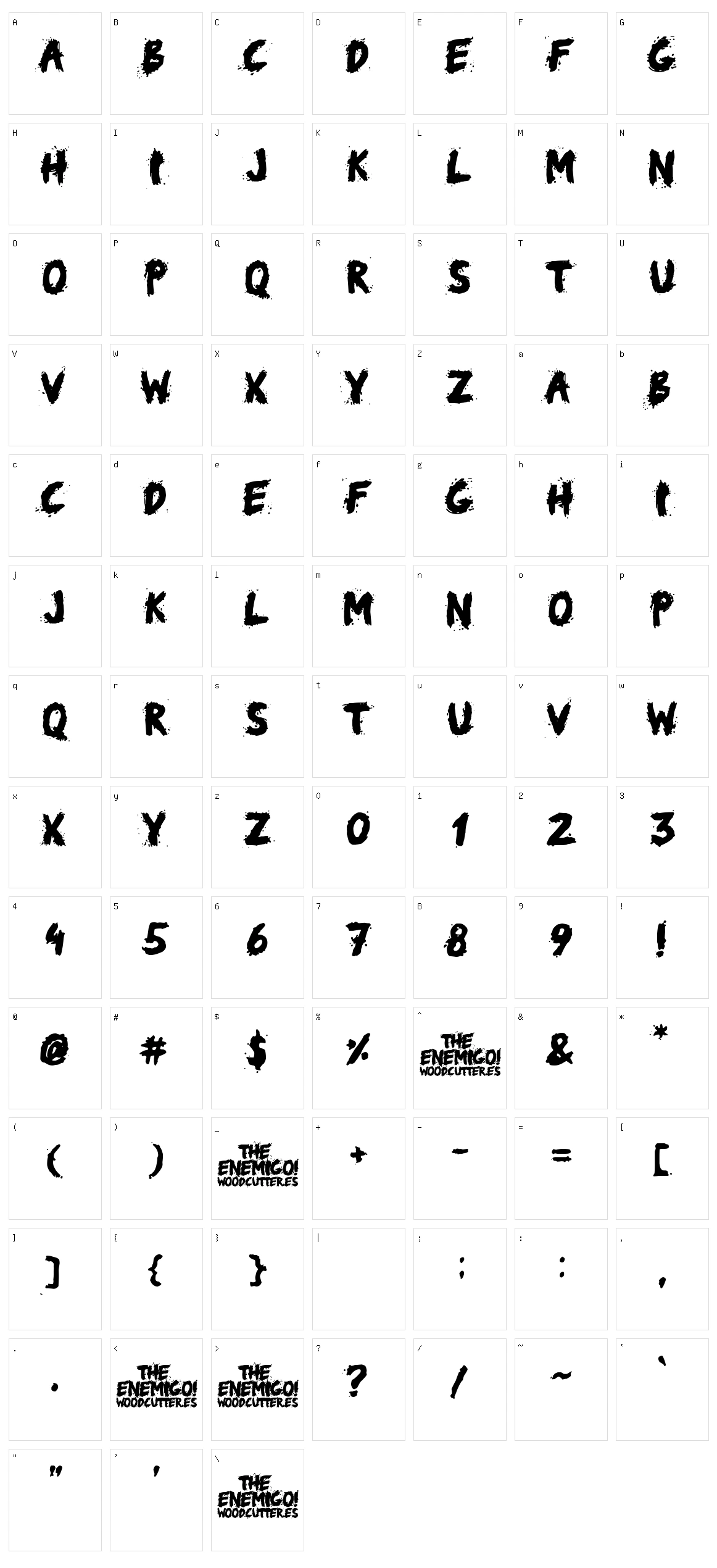
The free font The Enemigo is carefully designed by Woodcutter, showcasing a thoughtful balance of creativity and usability and falls under the Horror font style. When you download the ZIP file, it contains only 146.87 KB of font files, making it lightweight and quick to download. Please review the license details below to understand permitted usage and distribution rights. If license information is not available, we recommend using this font for personal projects only or contacting the author directly for commercial usage permissions.